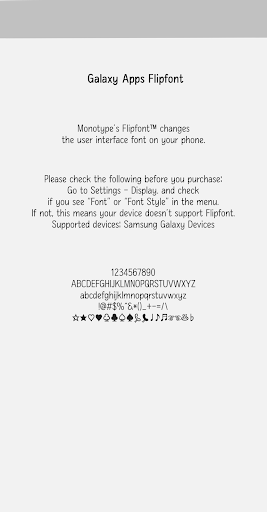
BST GrowSans
This typeface is arranged in a rectangular gothic form, but it has a flow, so it is designed with a concept suitable for reading. The flow has a rising image and has a growing meaning.